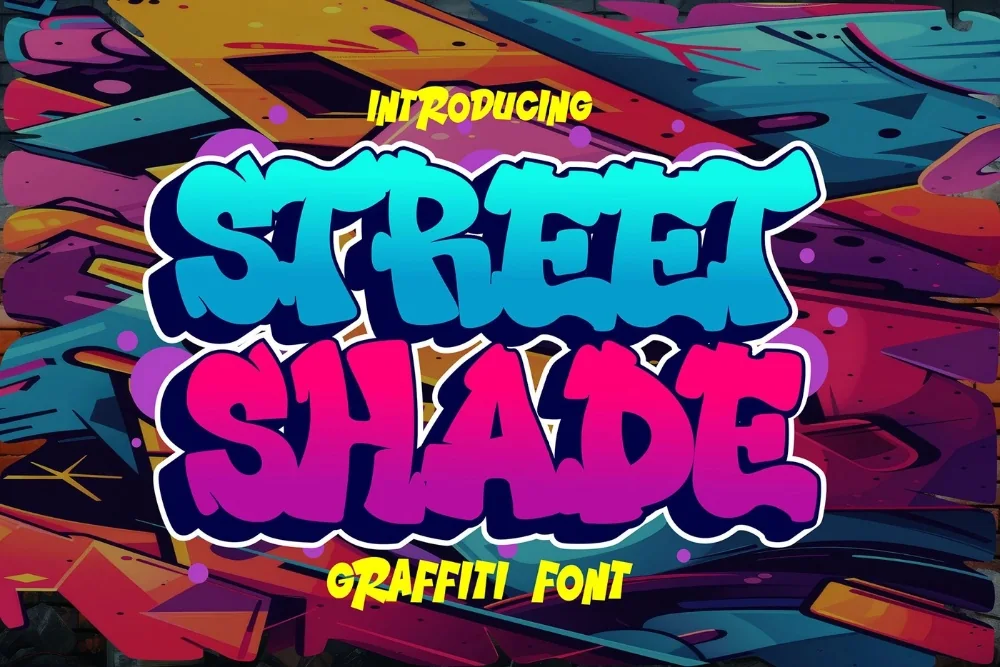
Drop Shadow Street Font
There is no shortage of options when you search for a 3d graffiti font, so here is precisely what makes this one different. Built-in depth, with a hard shadow offset behind every letter. You get a layered look without doing any layering.
Each character carries a solid offset shape below and to the right, giving the alphabet an immediate three-dimensional lift. The shadow keeps a consistent distance, so long words stay tidy.
Works well on posters, sale banners, sports graphics, and covers that need to pop off a busy background.
Give it room. Crowding this kind of alphabet against the edge of a layout wastes the shapes, and a generous margin does more for the design than any extra effect.